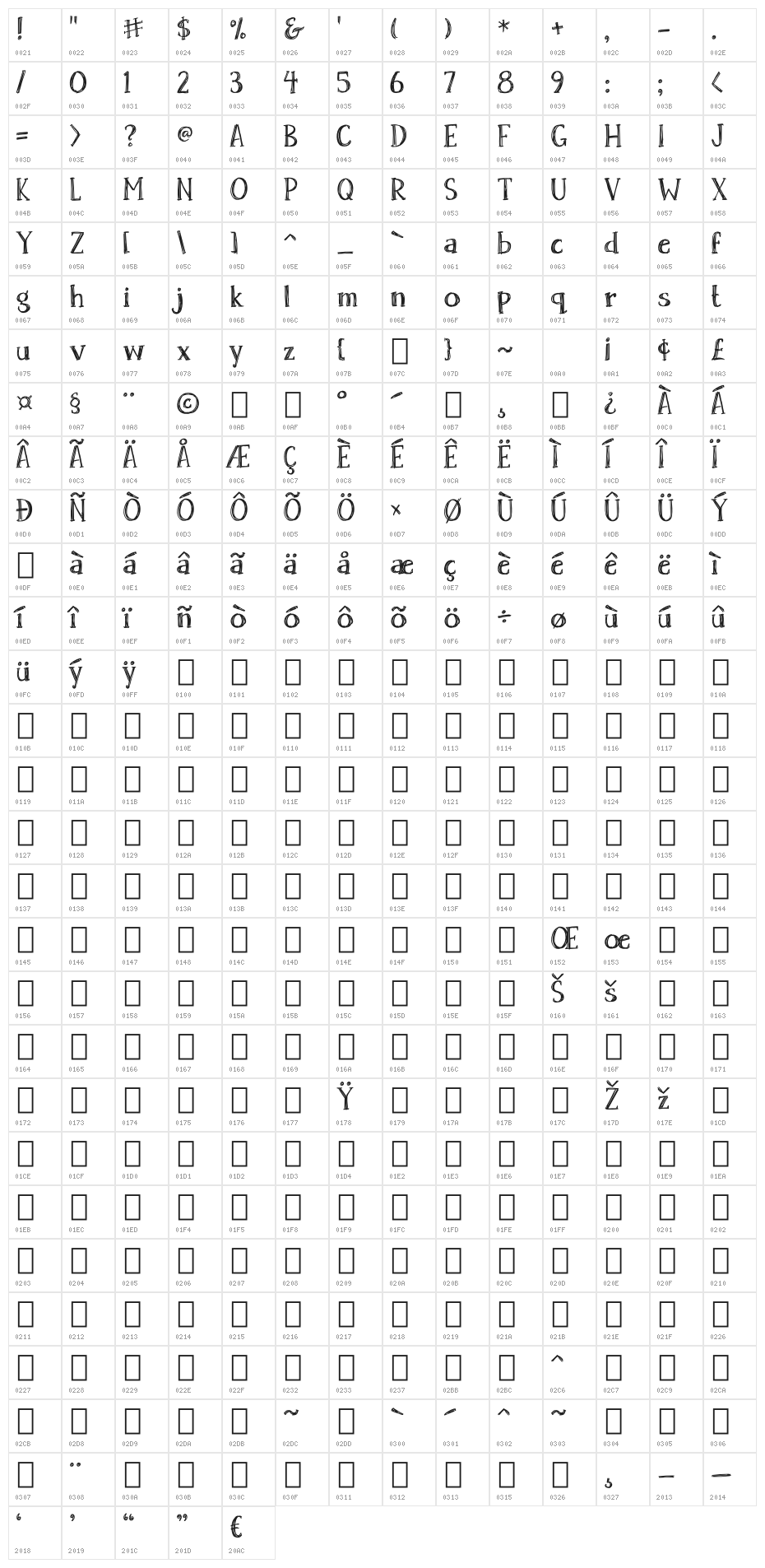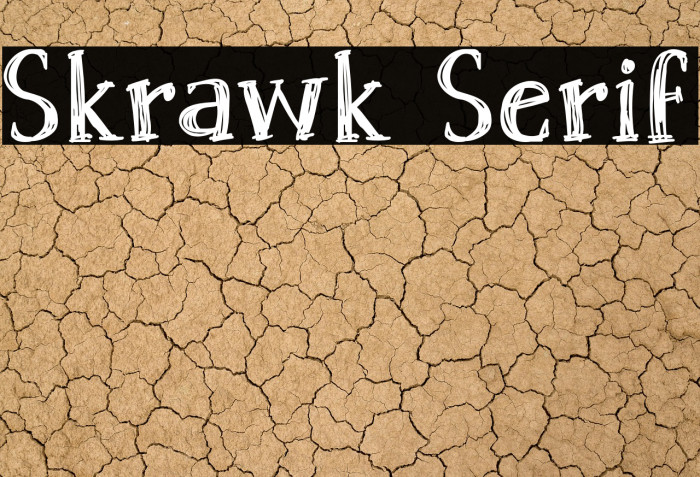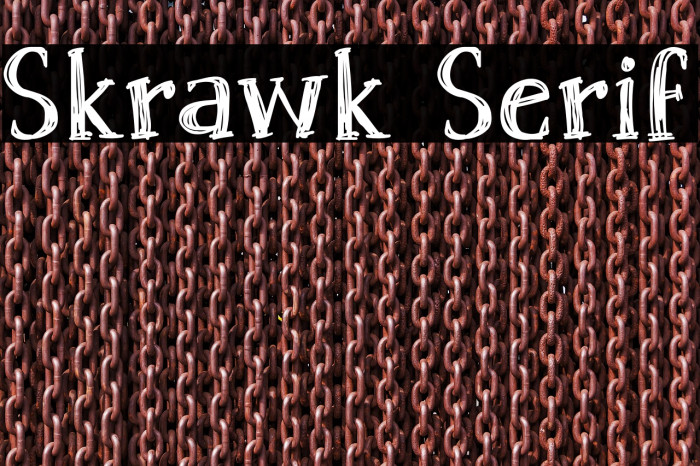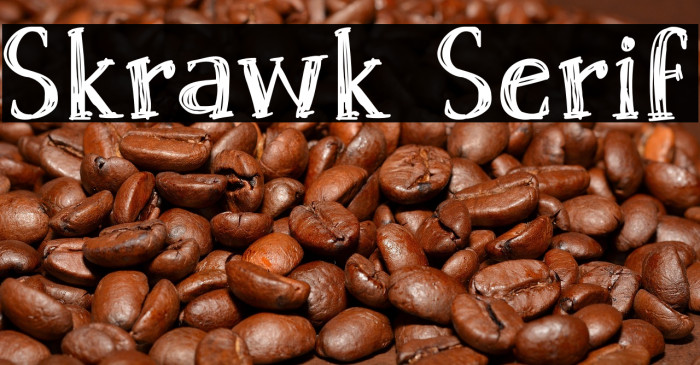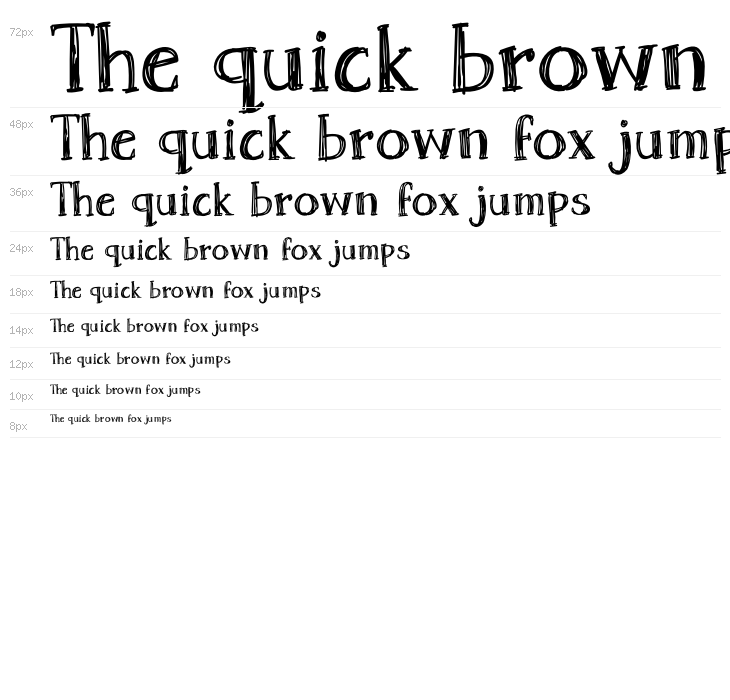
Skrawk Serif Font
Skrawk Serif Description
This font features a playful and artistic design, characterized by its hand-drawn, sketch-like appearance. Each letter is crafted with a unique, irregular stroke that gives it a whimsical and dynamic feel. The uppercase and lowercase letters maintain a consistent style, with a slight slant and varying line thickness that adds to the font's charm. The numerals and special characters are equally expressive, making them stand out with their bold and creative flair. This font is perfect for projects that require a touch of creativity and individuality.
| Overall Style | Artistic, Whimsical |
| Proposed Projects | Ideal for children's books, creative posters, artistic branding, and playful invitations. |